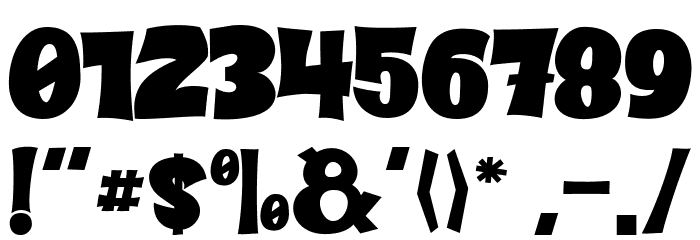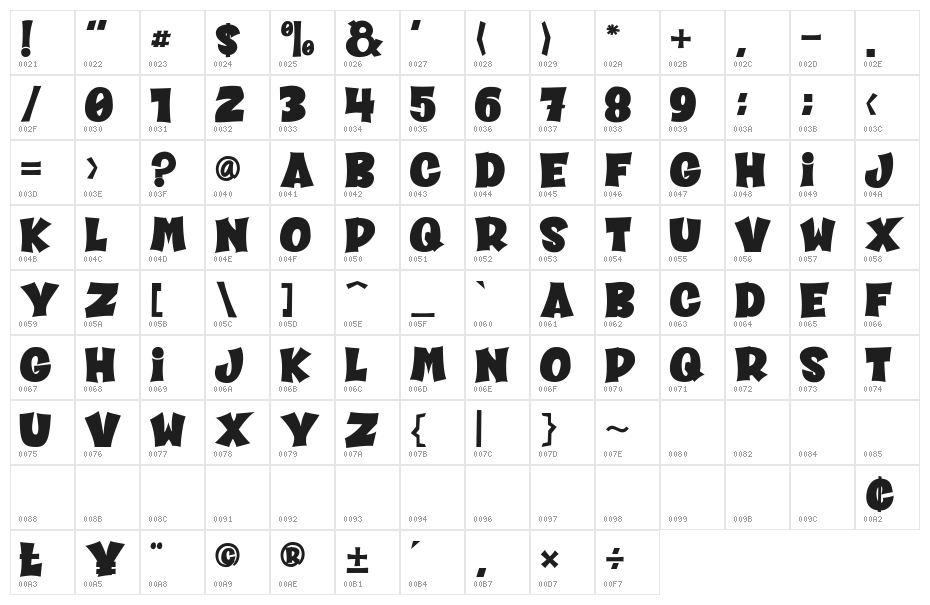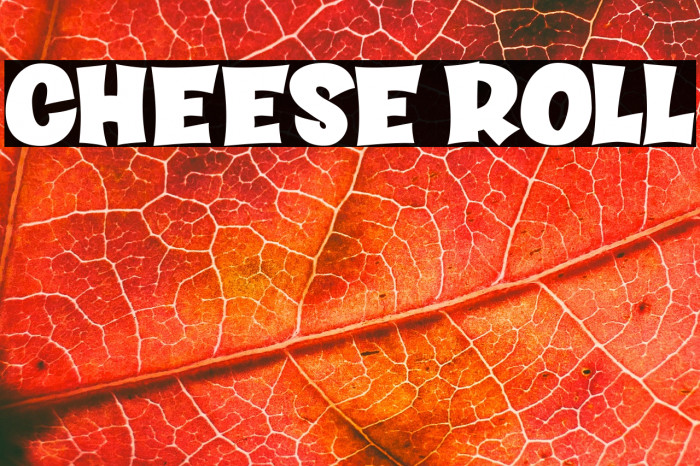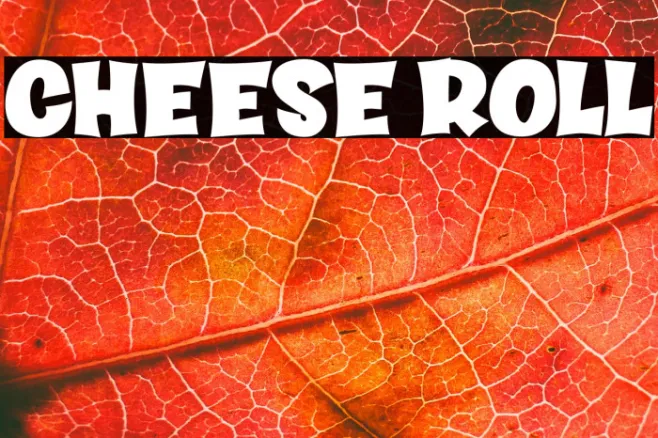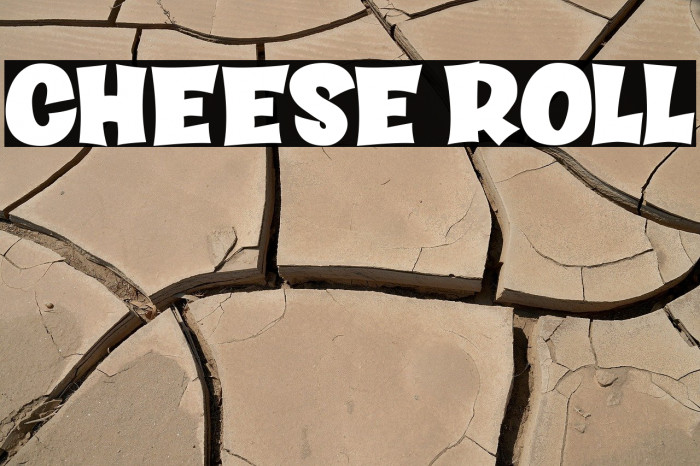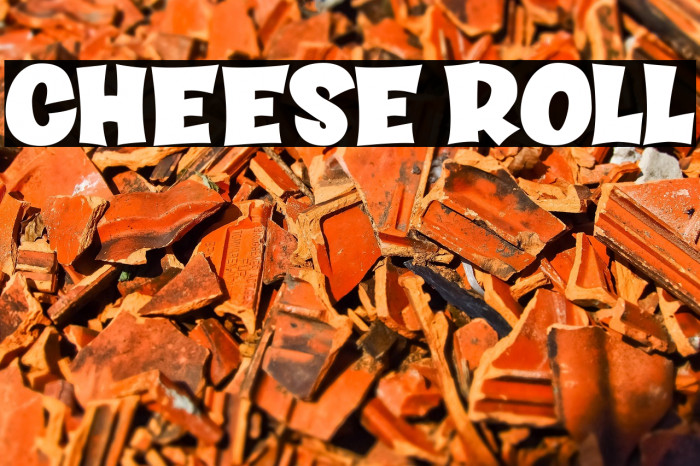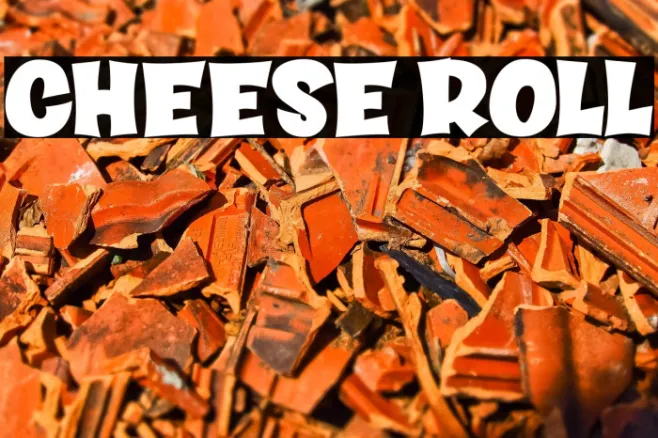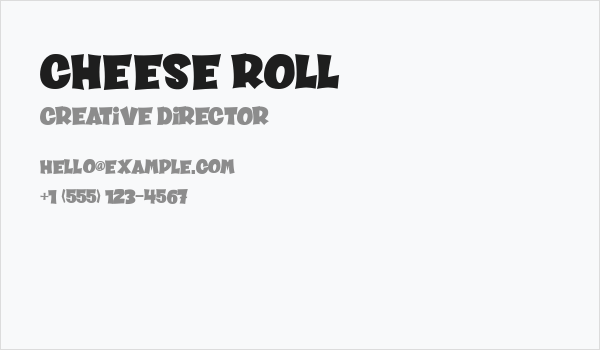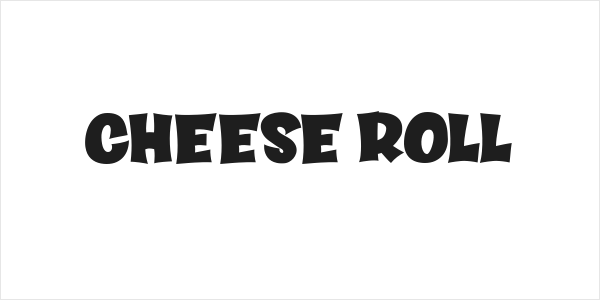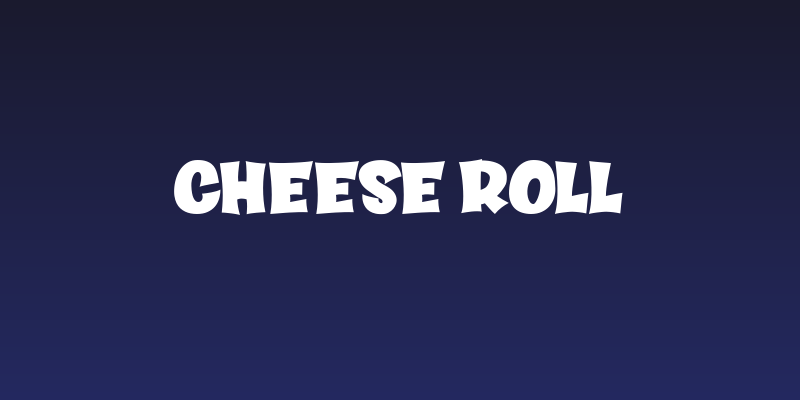
CHEESE ROLL Font
CHEESE ROLL Description
This playful and bold typeface features exaggerated curves and a whimsical style, making it ideal for eye-catching designs. The letters are thick and rounded, with a slightly uneven baseline that adds to its quirky charm. The font includes both uppercase and lowercase letters, numerals, and a variety of special characters. Its bold presence and unique character shapes make it stand out, perfect for projects that require a fun and engaging look.
| Proposed Projects | Ideal for children's books, playful branding, posters, and event invitations. |